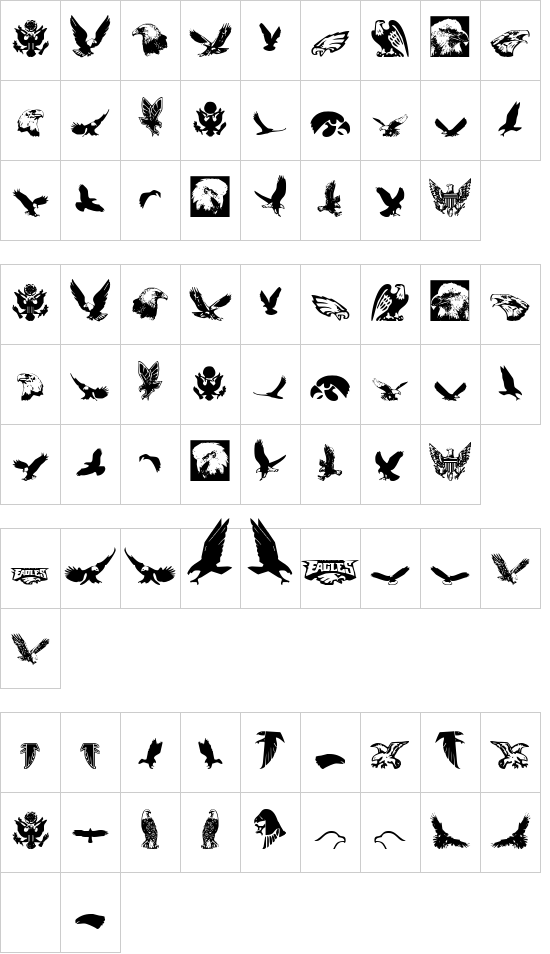
Eaglemania is a dingbat font built around eagles and birds of prey rendered in striking detail. Each key produces a bold avian image, from spread wings to fierce profiles, drawn with enough definition to anchor an emblem or crest.
Use it for patriotic branding, sports team graphics, wildlife posters, and emblem designs where a strong bird motif takes center stage. Eaglemania is free to download as a TrueType file, and you can preview the keys to see which eagle images appear before building one into your design.